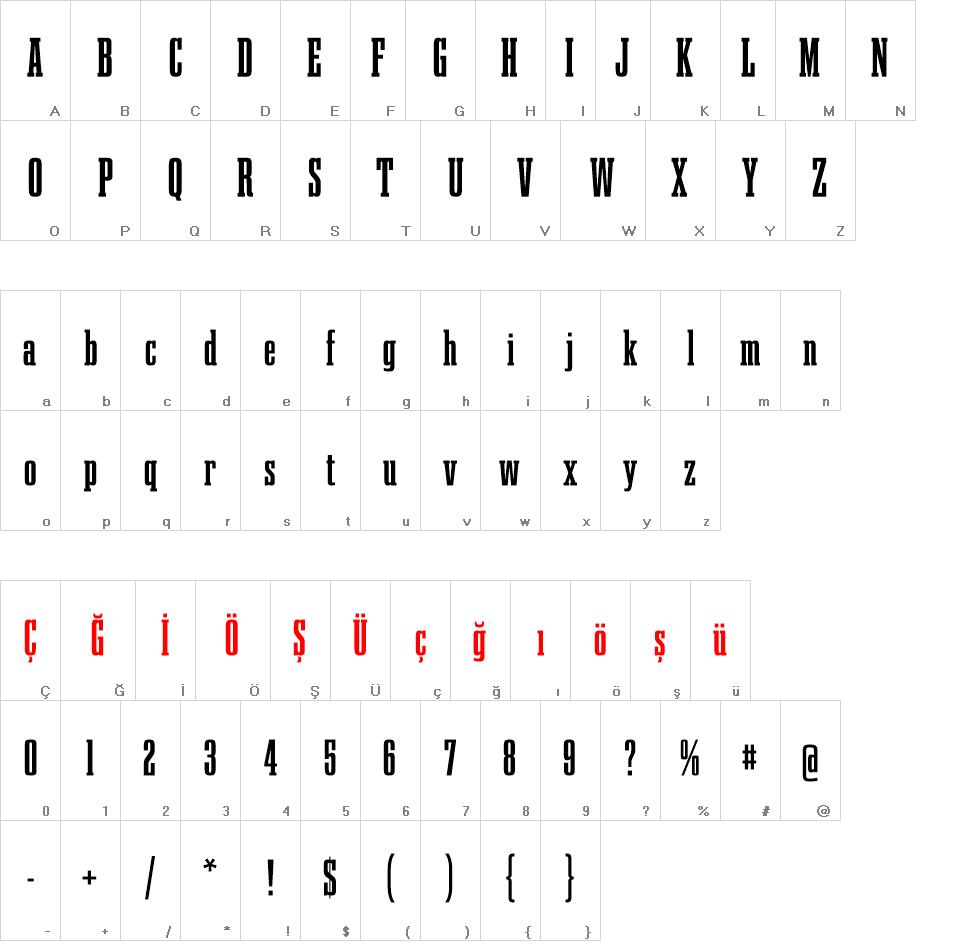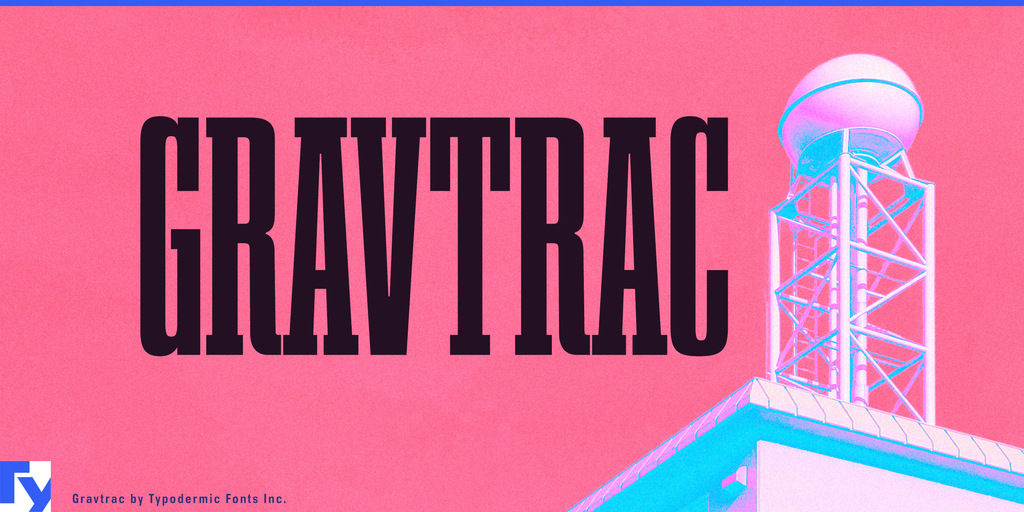
Gravtrac font
Gravtrac is a slab serif headliner designed to deliver solid punches while taking up as little horizontal space as possible. Inspiration comes from mid twentieth century classics: Univers 59 Ultra-Condensed, Helvetica Inserat and Compacta. It's all about flat sides, a steady rhythm and tight, precision curves. The widest style of Gravtac is Condensed—compact, yet a comfortable read, available in 7 weights from Ultra-Light to Heavy. Gravtrac Compressed is probably the width where most typefaces would quit. It's narrow enough for most...but not for you. That's why we have Gravtrac Crammed. It's audaciously narrow—perfect for times where you want the reader to slow down and truly pay attention to the message. Gravtrac Crushed is devilishly slender. Try it with wide tracking for a stark, opulent look. All styles are also available in obliques varying from 7 to 10 degrees—58 styles in total. Gravtrac includes Opentype fractions, numeric ordinals, a breadth of currency symbols and old-style (lowercase) numerals. Almost all current Latin based languages are supported as well as Greek and Cyrillic. Every skilled designer already has slab serif typefaces in their stockpile but some of us have the need to squeeze.